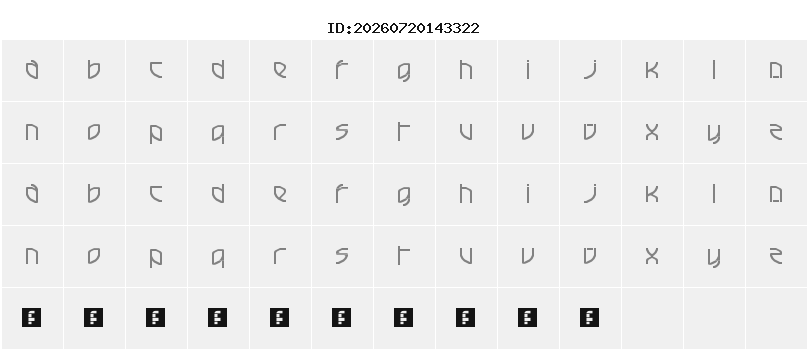
• Font Name: French Electric - Techno
• Full Font Name: French Electric - Techno Regular
• Designer: floor-3013
About French Electric - Techno.ttf
French Electric - Techno.ttf is a modern, elegant sans-serif font designed for ultimate readability and visual harmony. Perfect for branding, headlines, web design, and print materials.